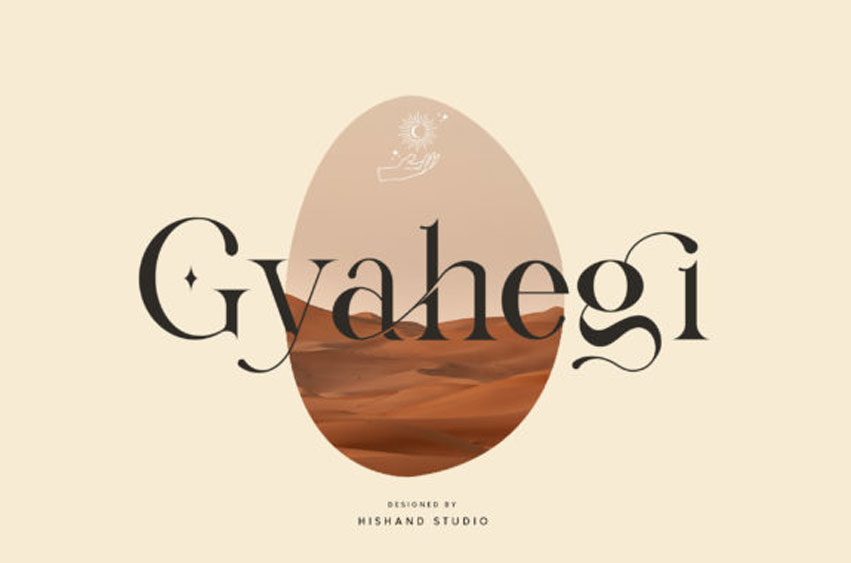
Gyahegi Font
Gyahegi Font is a modern and elegant serif font with beautiful icons. Fall in love with its completely different and timeless style and use it to create spectacular designs!